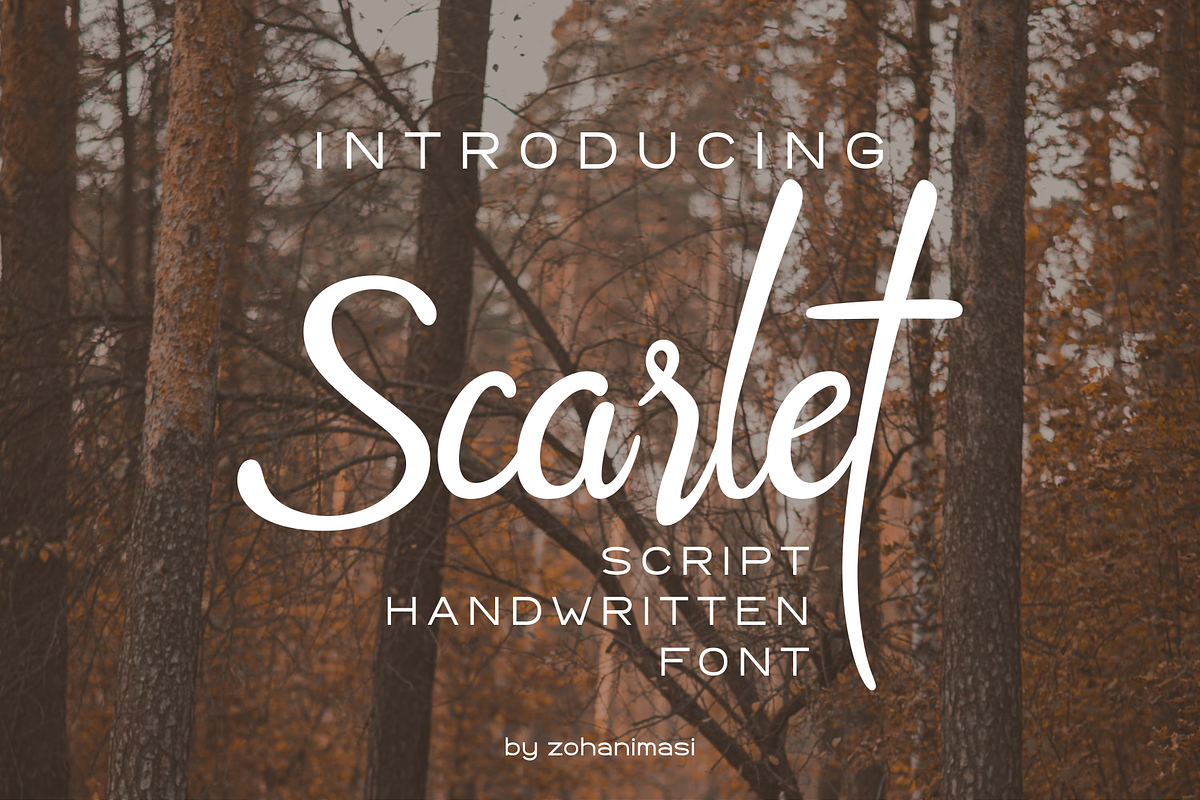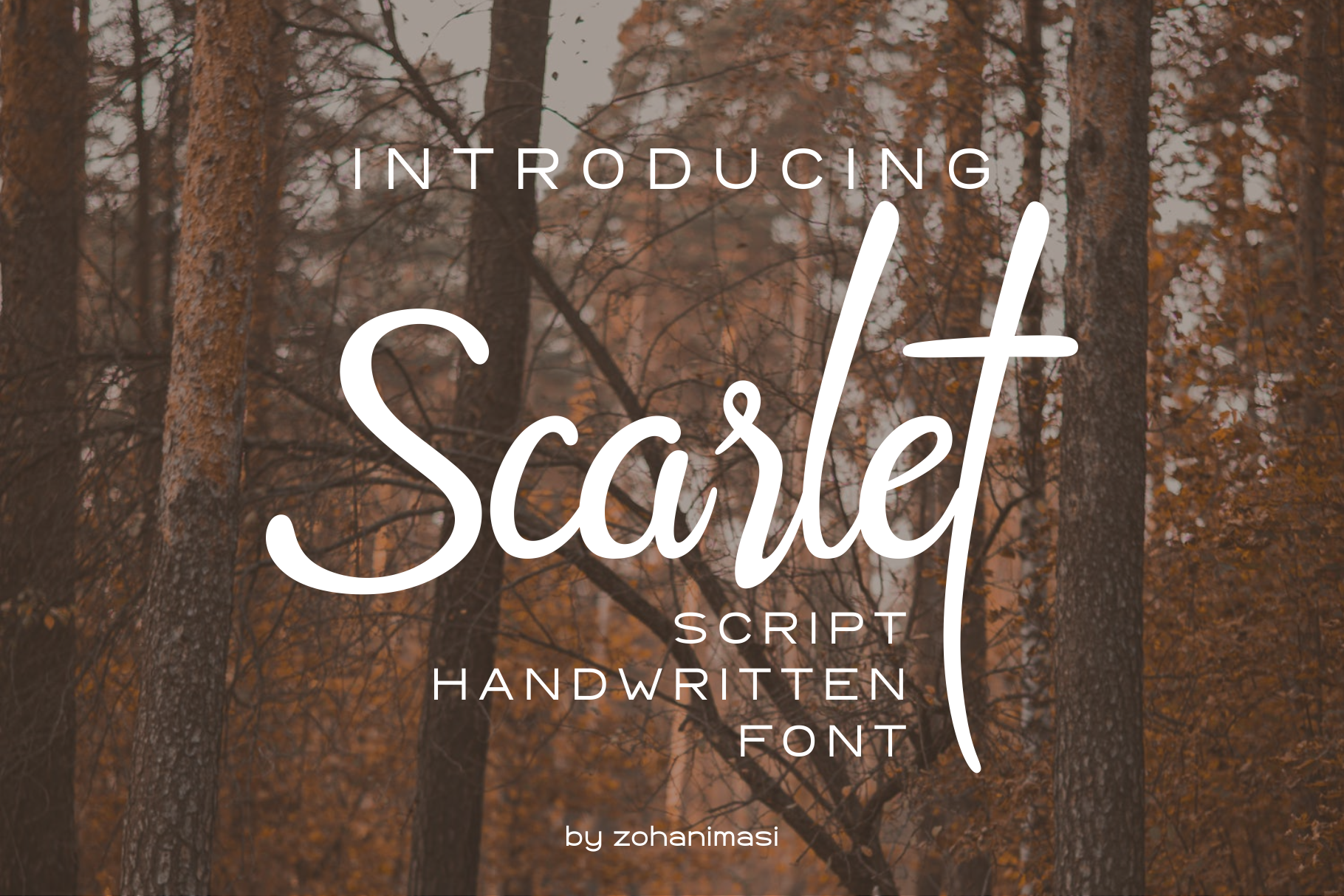
Scarlet - Script Handwritten Font
Scarlet - Script Handwritten Font. It is perfect for watermark on photography, signature, wedding invitation, promotion, product packaging, and other needs.